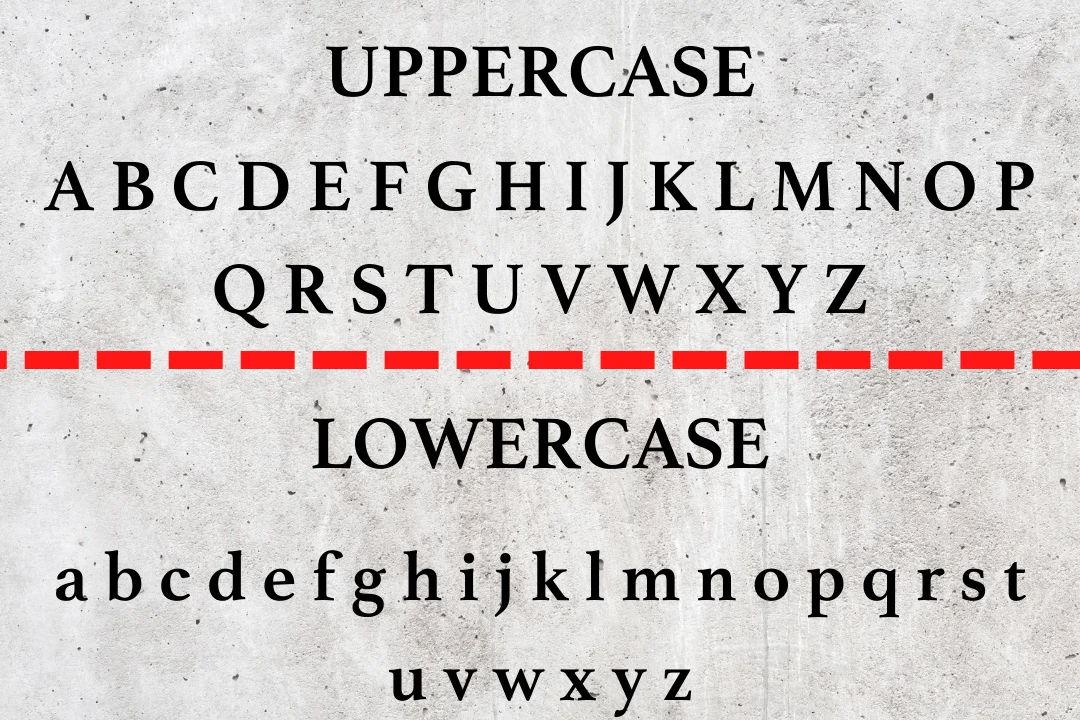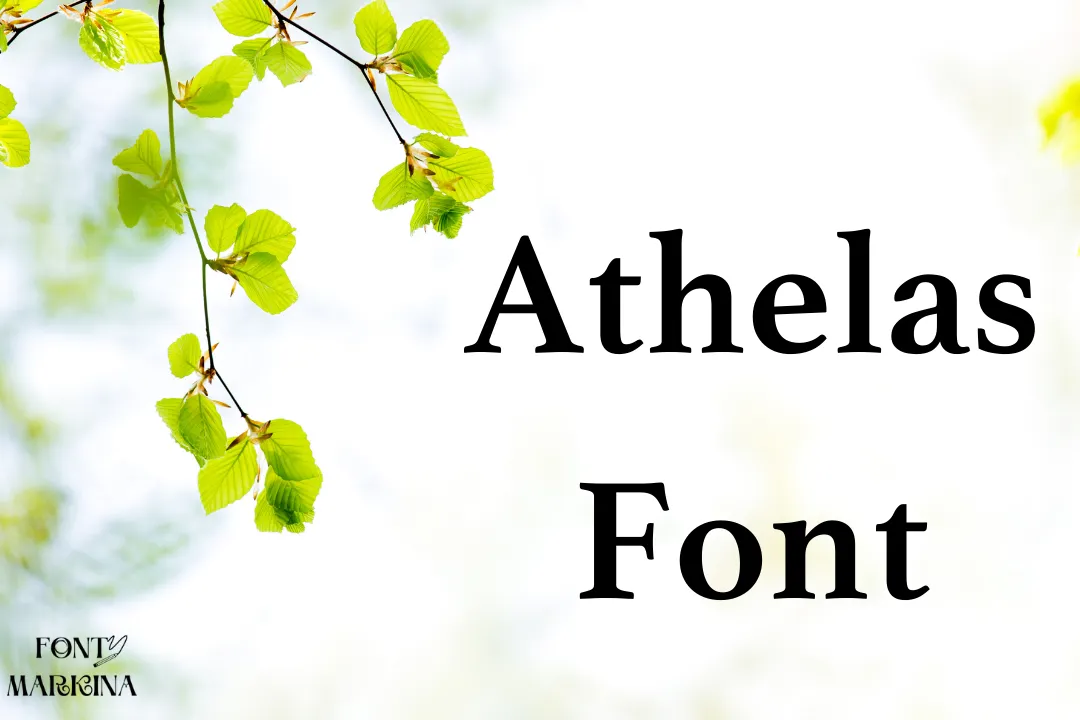
Now, we will introduce to you Athelas Font. It is one of the famous typefaces that has been used long-term at the industry level. This typeface was developed by the two most experience able designers Veronika Burian and Jose Scaglione.
It was published in the font world through TypeTogether in 2008. This font can also be utilized in Microsoft software and google fonts. The font family of this typeface includes multiple weights such as Bold, Italic, Regular, And bold Italic.
Athelas Font can be used in CSS, adobe photoshop and Canva. The pairing quality of this typeface is very best. You can easily compare it with patron font.
Uses of Athelas Font
Athelas Font can be used for a variety of multiple projects. A lot of designers use this typeface in their designs like articles, invoices, presentations, headlines, and titles.
This typeface will enhance the quality of your project with its amazing texture. Because it makes your project easy to readable. It supports different languages, such as Interglossa (Glosa), Hausa, and Occitan.
Furthermore, you can be used it for YouTube thumbnail designs, logos, posters, business, and invitation cards. It is recommended for your projects.
Romanian, Spanish Khalkha, Khanty, Kildin Sami, Komi-Permyak, Kurdish, Finnish, French, Interlingua, Karachay (Cyrillic), Southern, English, Guarani, Greek, Russian, Interglossa (Glosa), Hausa, Occitan, Irish (Gaelic), Italian, Jèrriais, Nahuatl, Nenets, Icelandic, Oromo, Piedmontese, Norfolk/Pitcairnese, Somali, Karachay (Cyrillic), Southern, Southern Sotho (Sesotho), Kurdish (Kurmanji), Macedonian, Ndebele, Kazakh (Cyrillic), Quechua, Rhaeto-Romance, Papiamento, Khanty, Kildin Sami.
What type of font is Athelas?
This typeface looks like a modern serif typeface family. It has an elegant type of character for multiple structures.
Is Athelas a good typeface?
Yes! Athelas is a stunning book texture relative for print and screen.
Who created Athelas?
This font style was created by well-known two graphic designers Veronika Burian and Jose Scaglione.